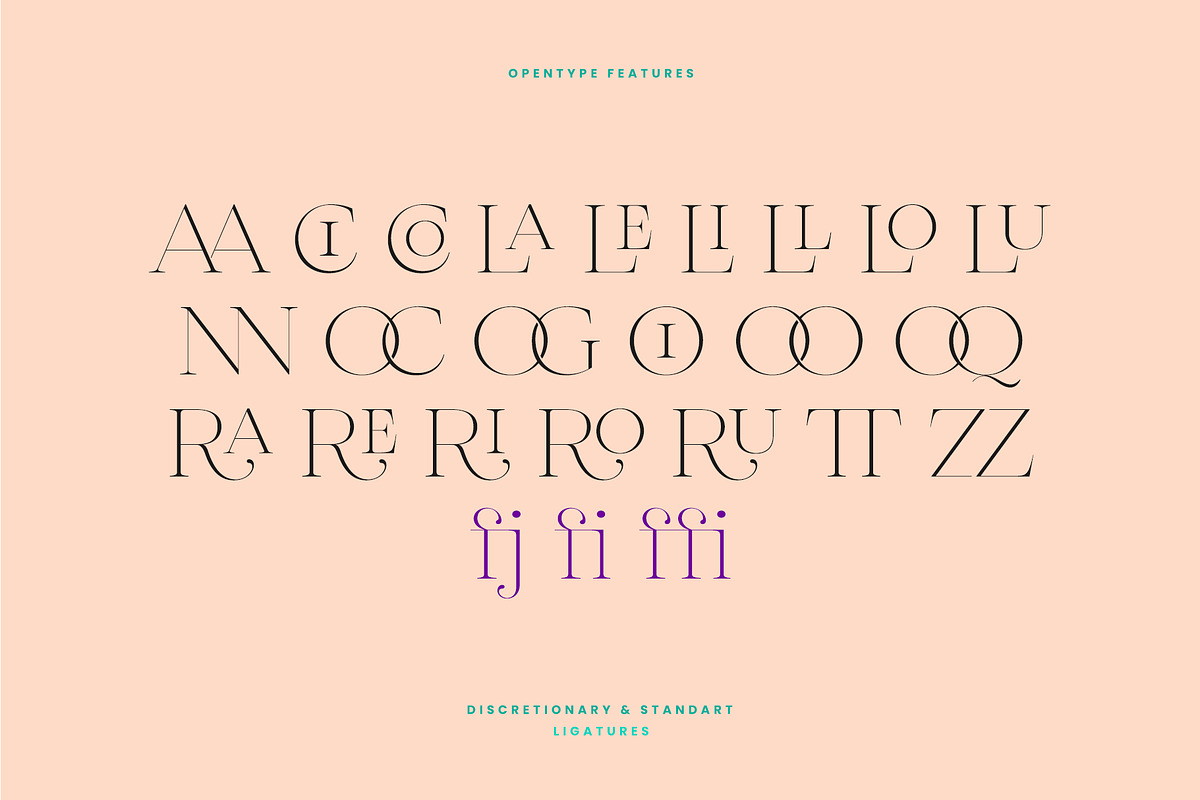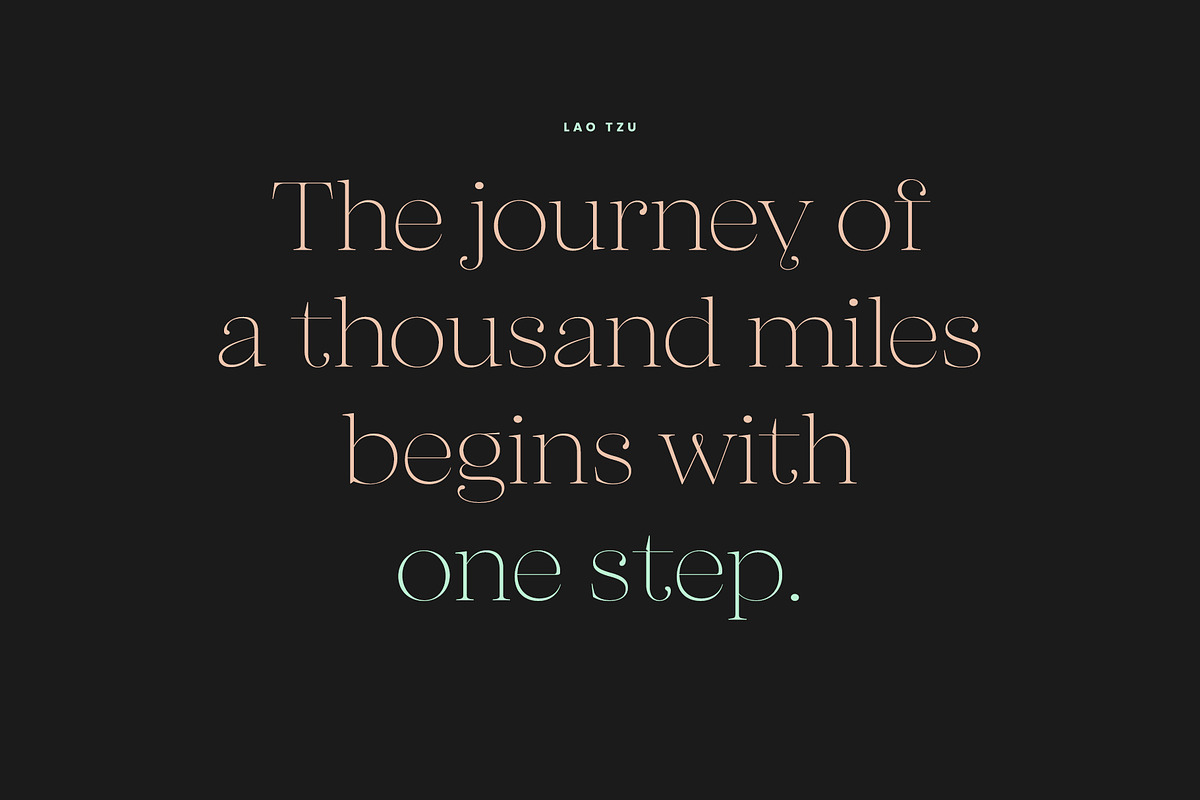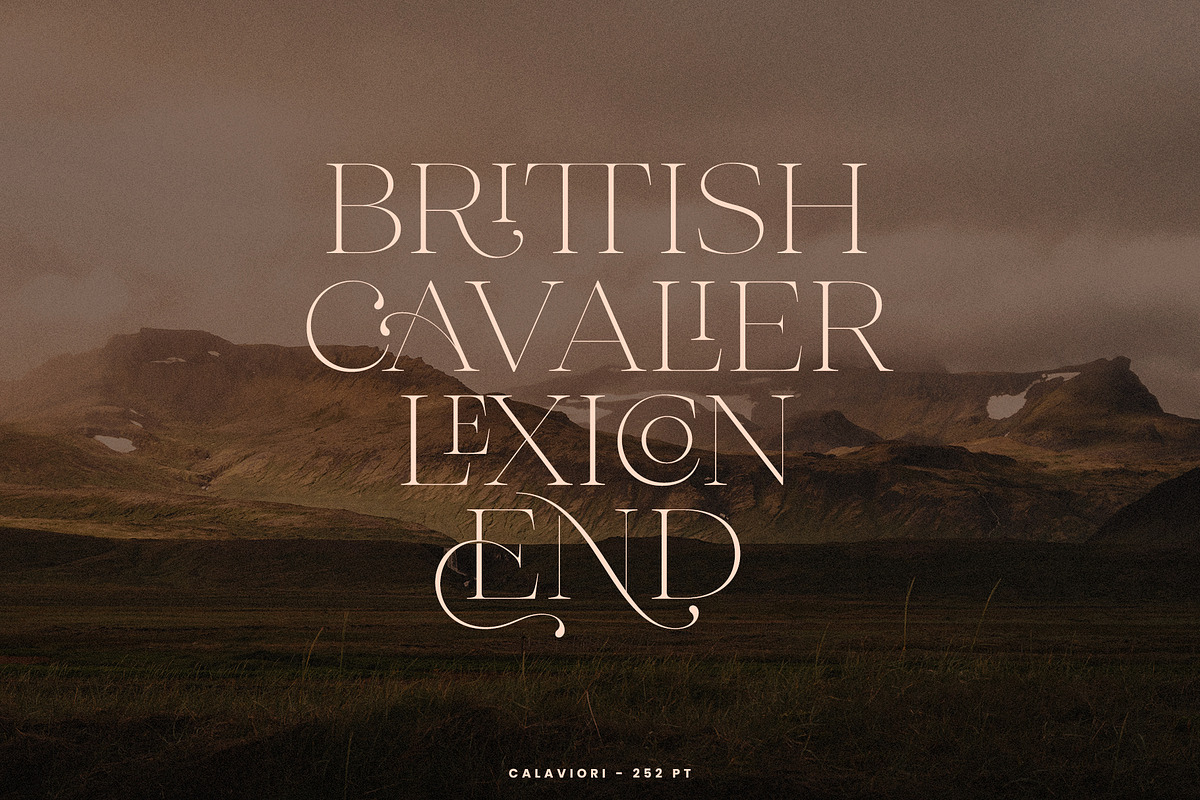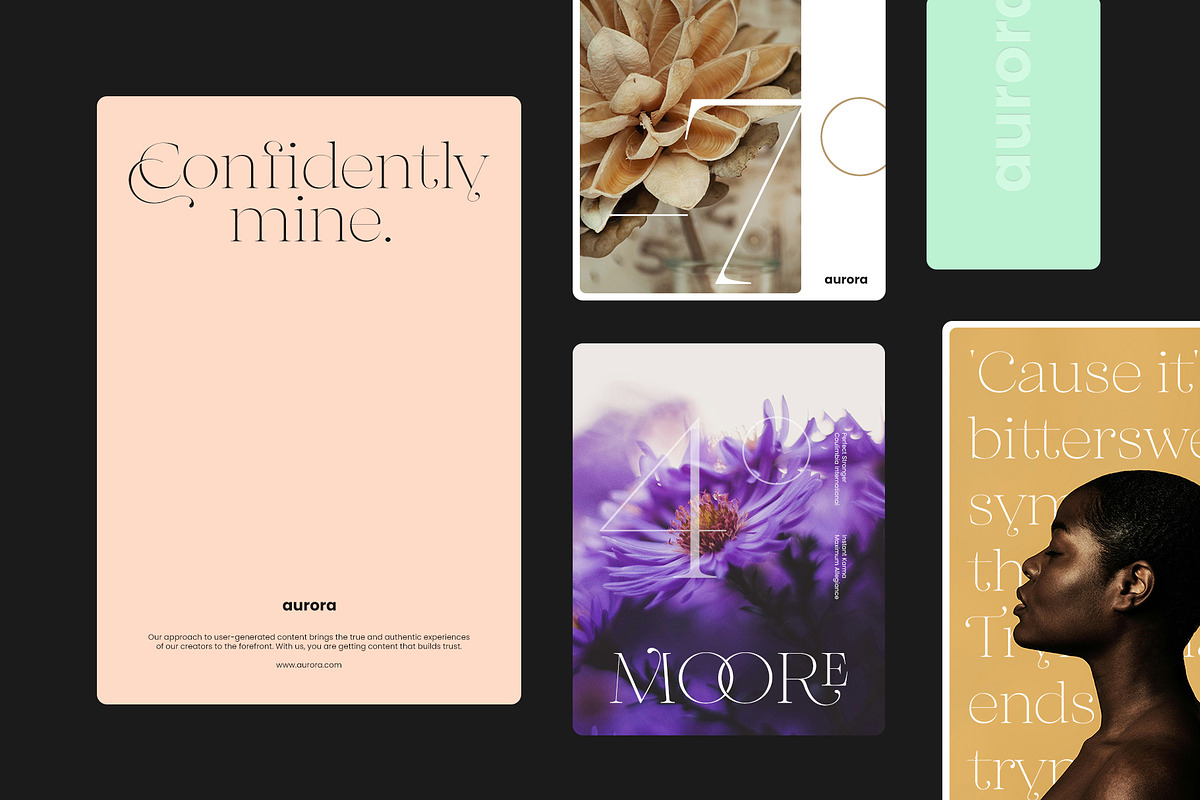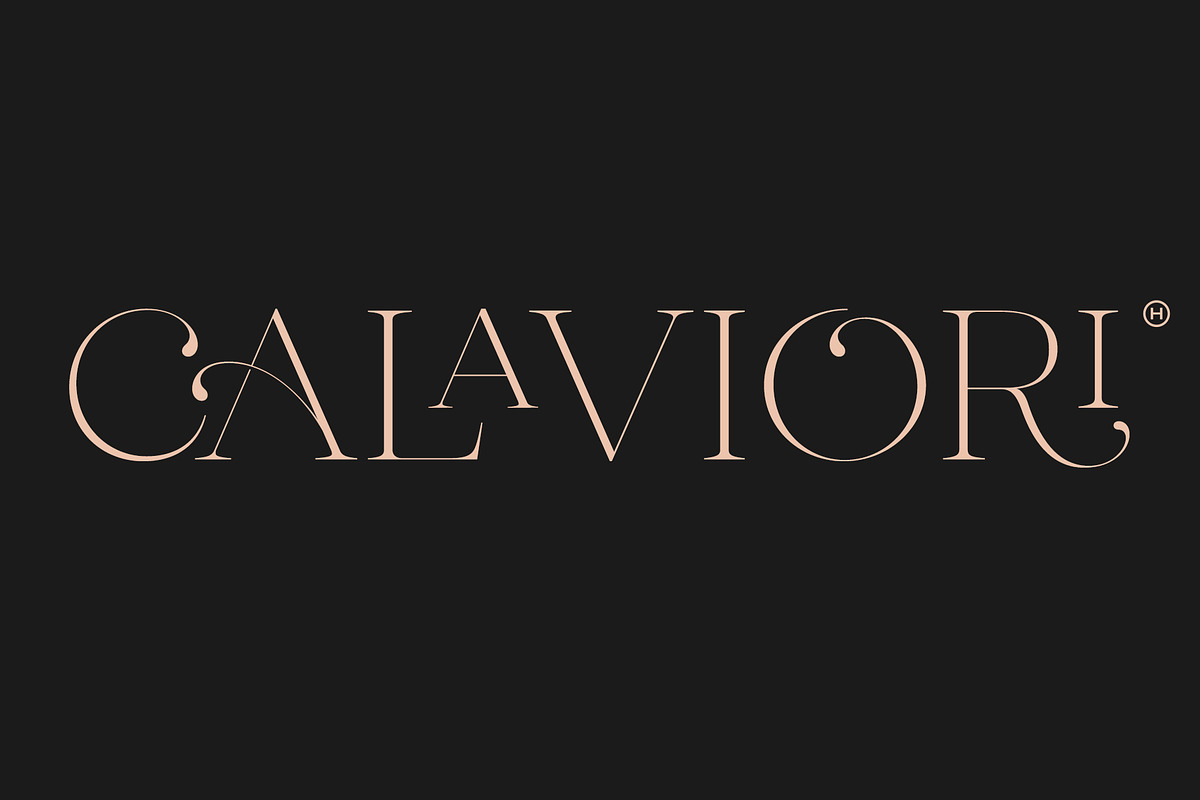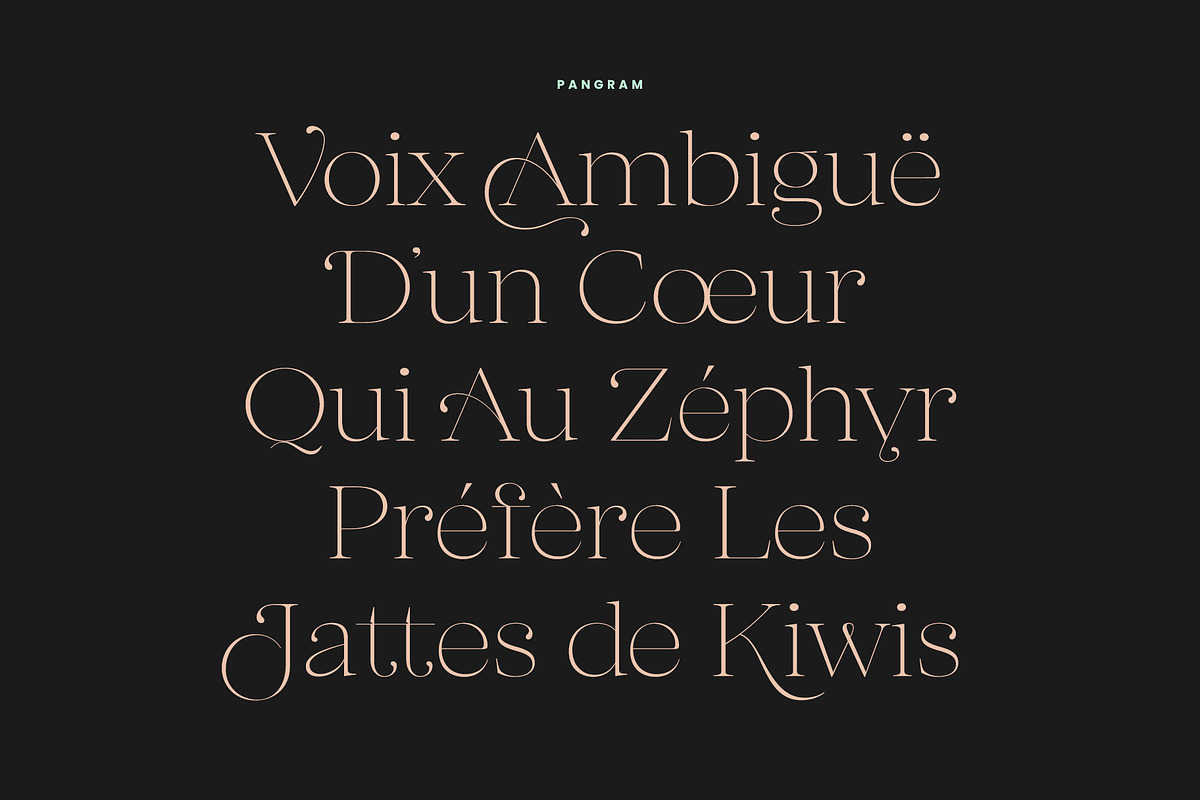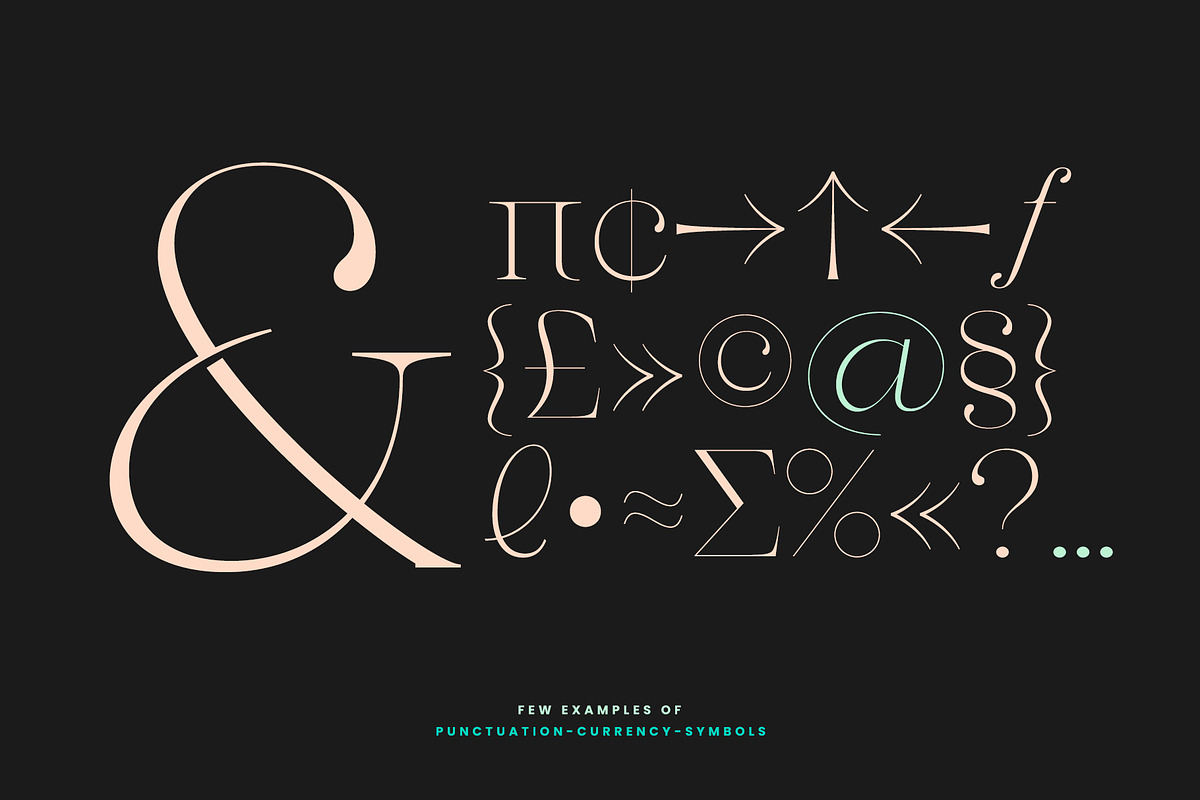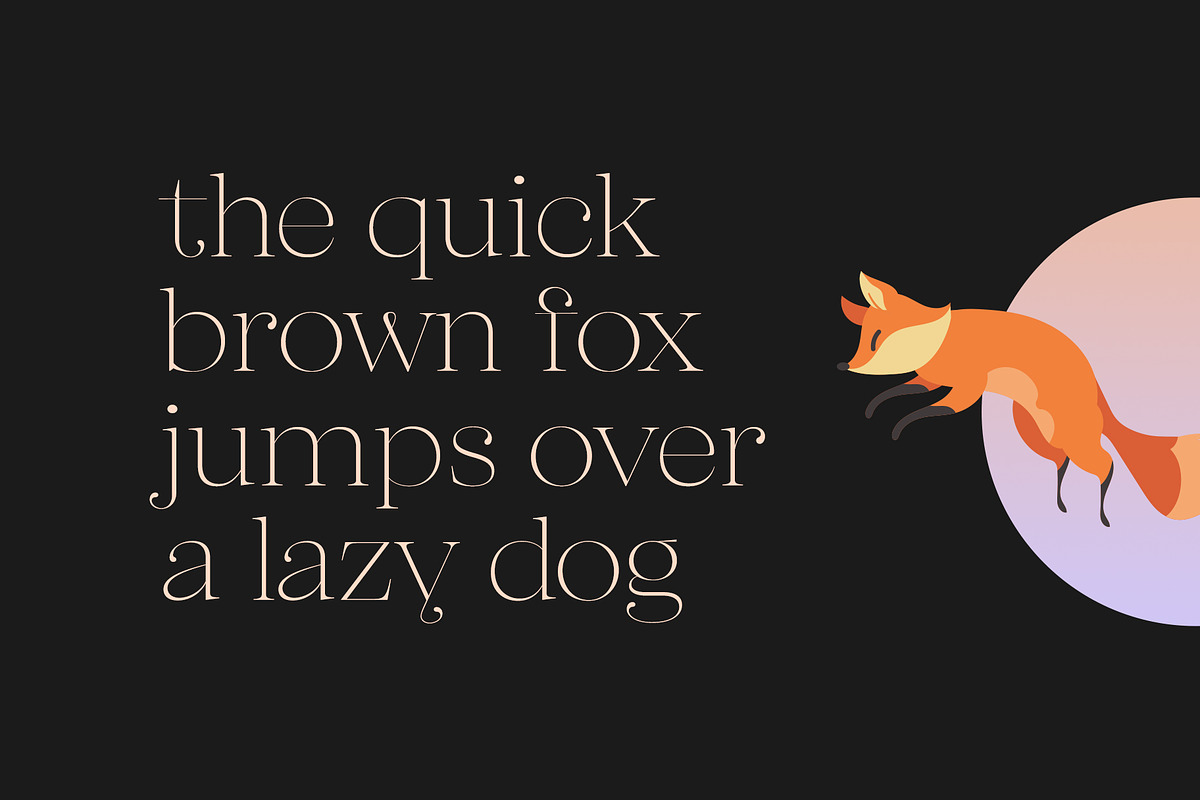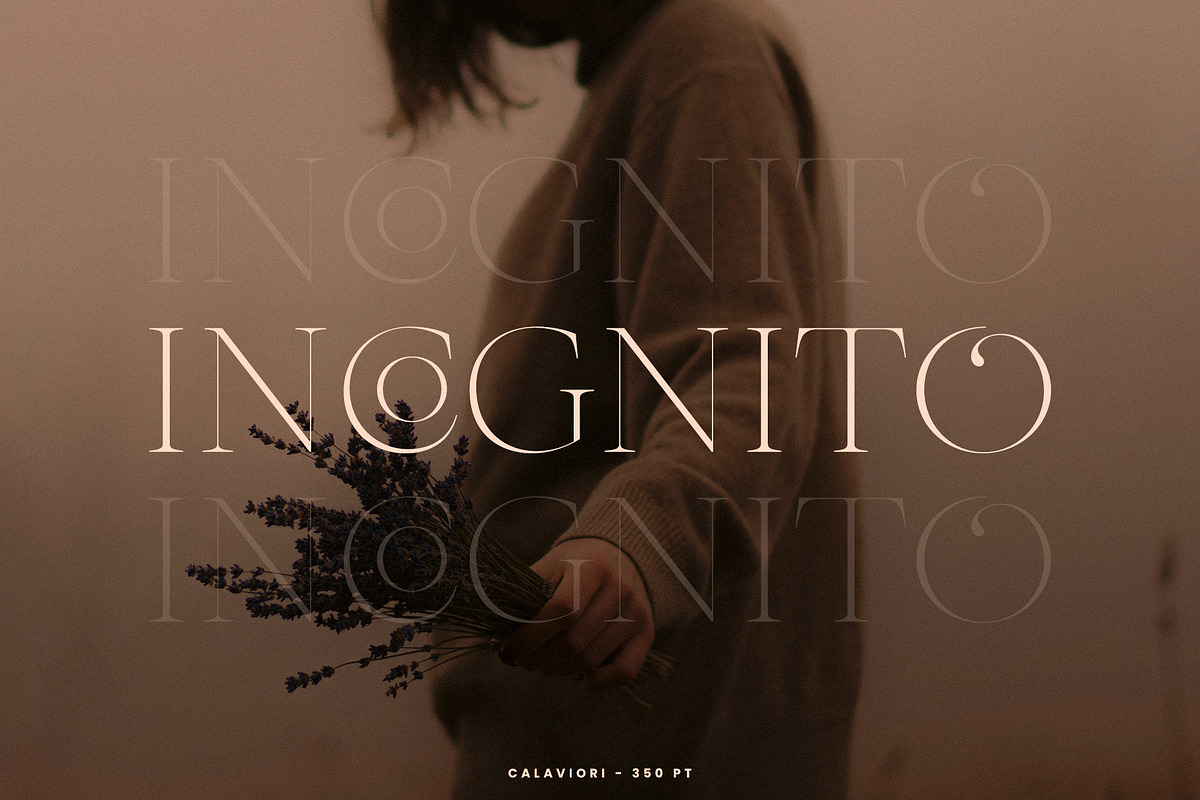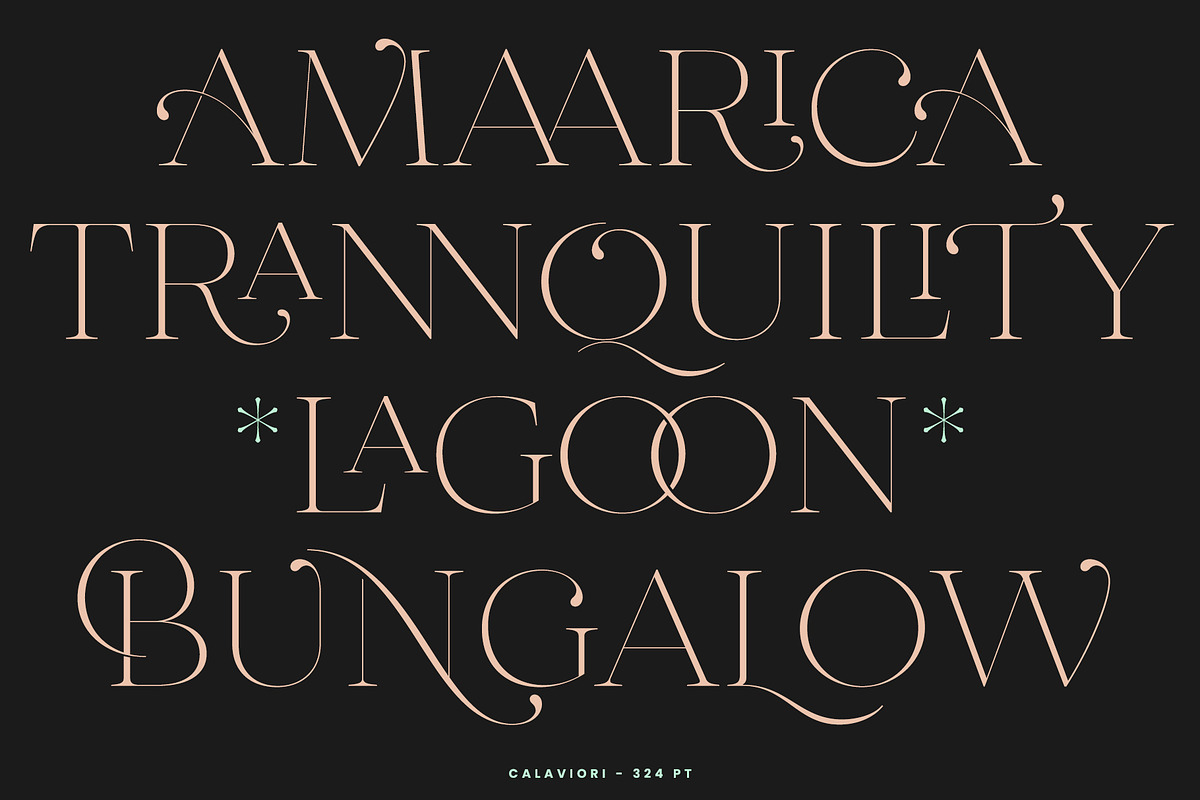
Calaviori - Display Serif
CALAVIORI | Stylish Thin Display Serif
Calaviori is a refined thin serif typeface, perfect for enhancing the sophistication of your design projects. Its elegant ligatures and diverse alternates make it an excellent choice for creating stunning headlines, luxury branding, and polished editorial layouts. This font not only offers a visually appealing aesthetic but also provides versatility in design.
- Uppercase - Lowercase
- Numerals - Punctuations - Symbols
- Ligatures - Stylistic Sets/Alternates
- Accents - Multilingual Characters - Adobe Latin 3